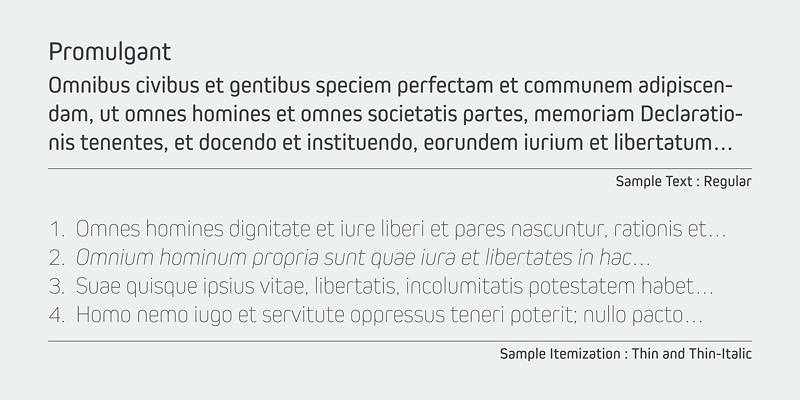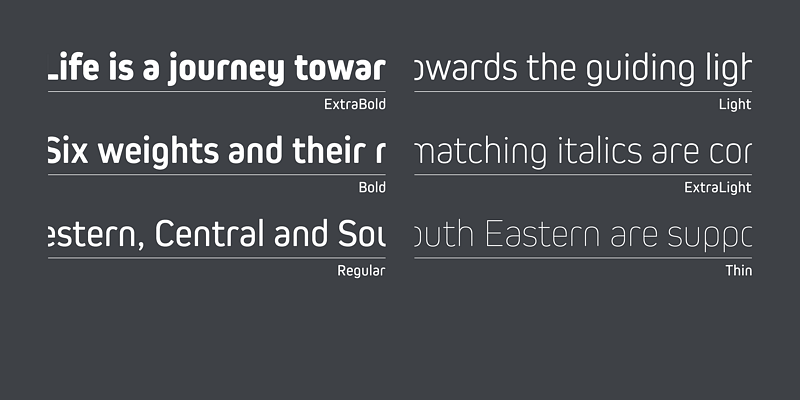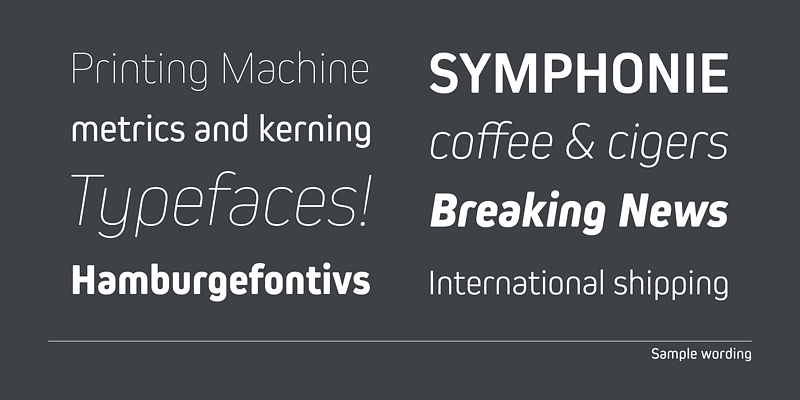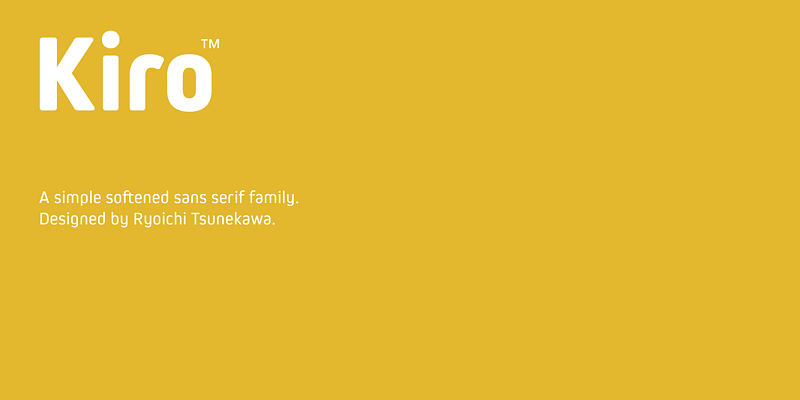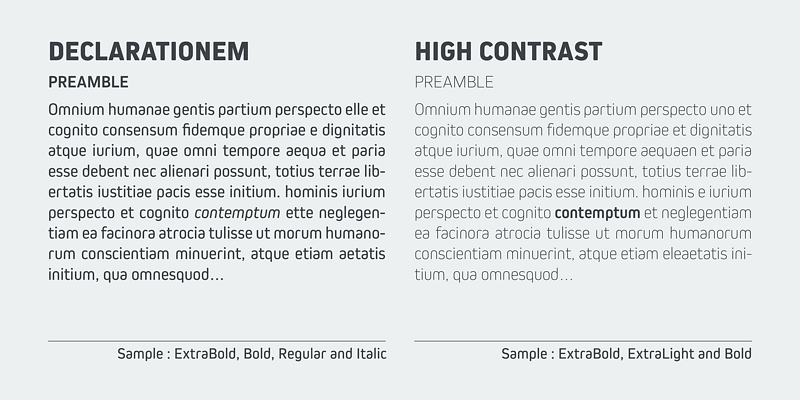
Kiro is a minimal, simple condensed sans-serif. The basic skeleton was designed semi-modularly and the letterform was minimalized by removing their unnecessary stems.
Dharma Type started in 2005 as a project to offer exclusive fonts designed by Ryoichi Tsunekawa for designers all over the world. The design style is wide-ranging - from retro and classic to experimental and futuristic, from formal to informal. The direction of the project is to fill the small niche of design demand. So far, Dharma Type released about a hundred Latin typefaces including Bebas Neue (free open source font), and many of their fonts have been featured in various publications and used in multiple media such as movie titles (e.g. La La Land), brand logos, and posters.